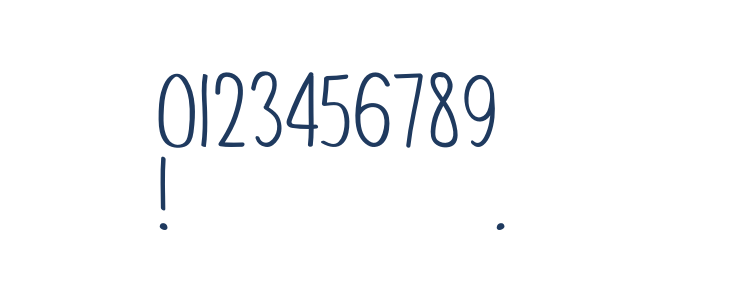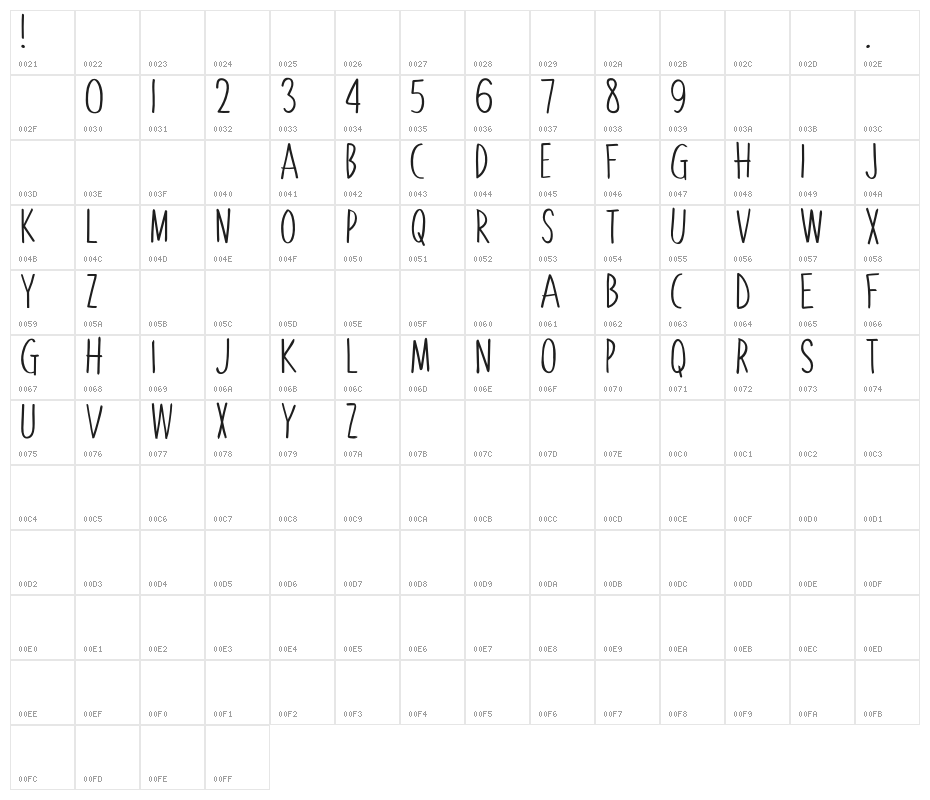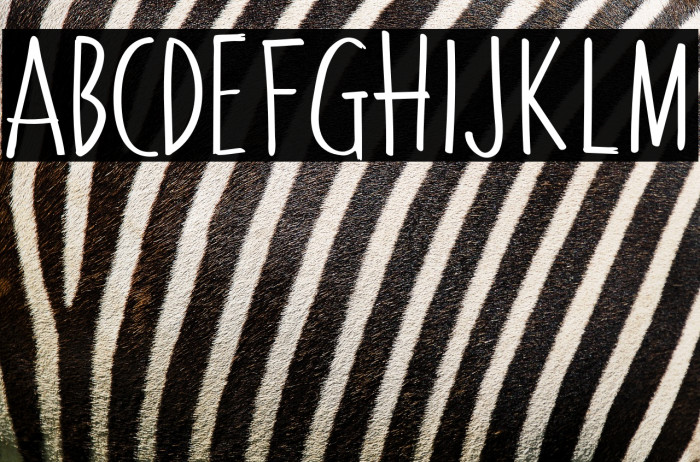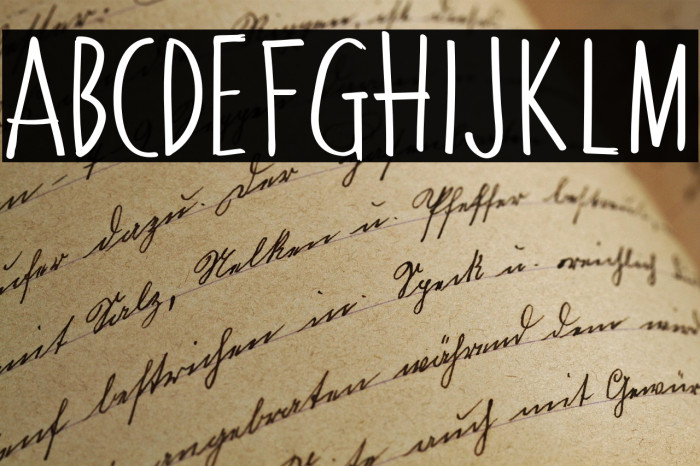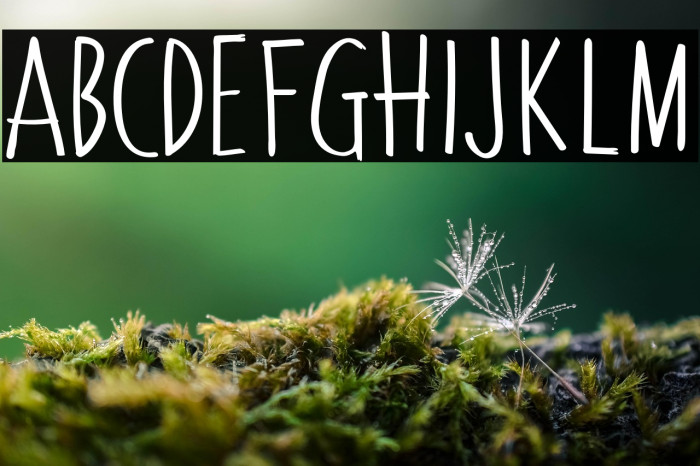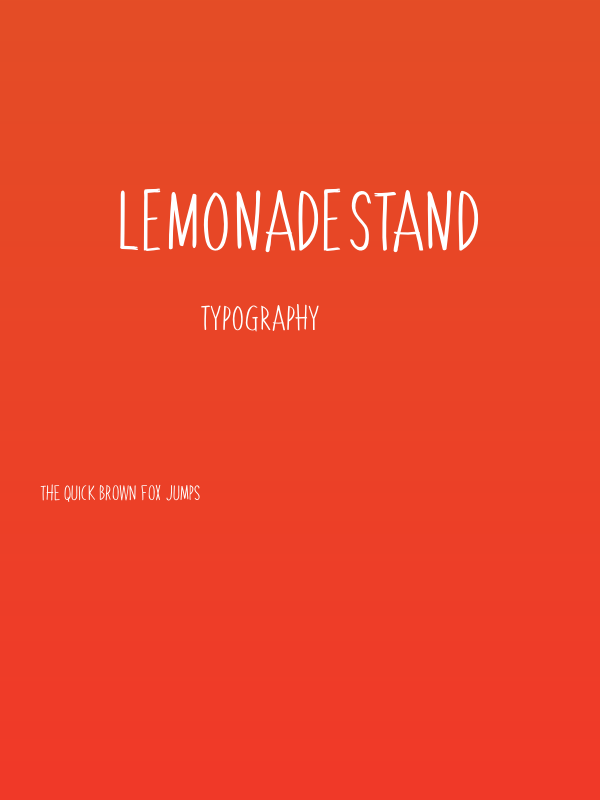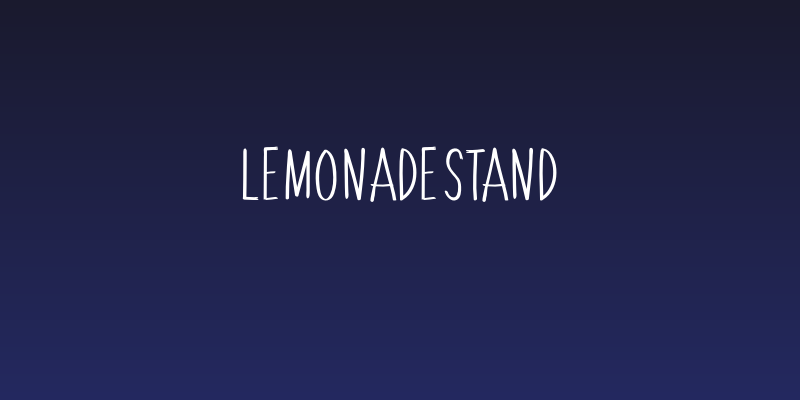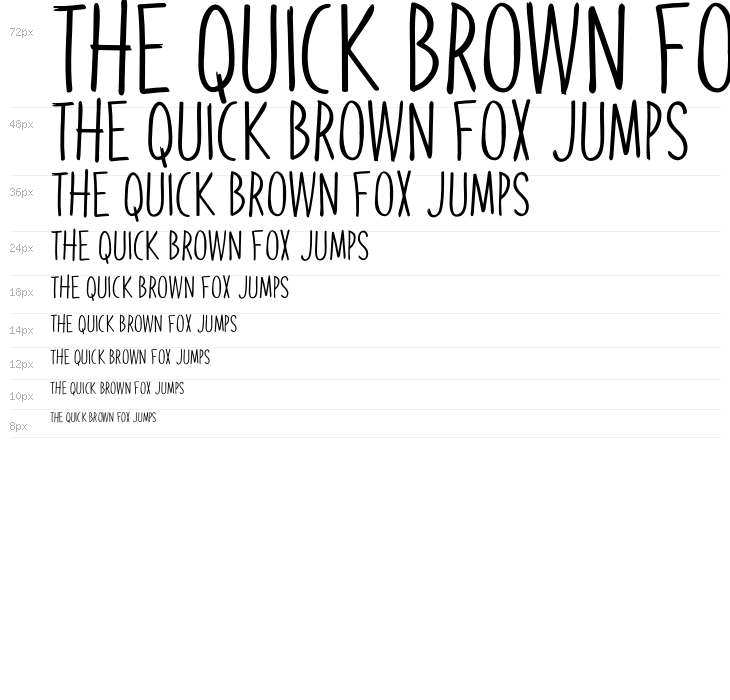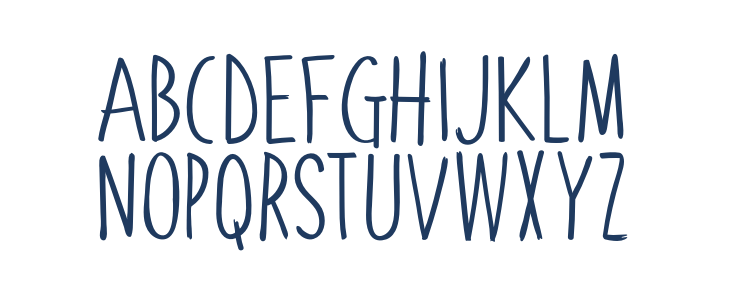
LemonadeStand Font
LemonadeStand Description
This playful and informal font features tall, narrow letters with a hand-drawn aesthetic. The strokes are slightly uneven, giving it a casual and approachable feel. The uppercase and lowercase letters maintain a consistent style, with rounded edges and a slight tilt that adds to its whimsical charm. The numerals are clear and easy to read, matching the overall style of the alphabet. Special characters are included, maintaining the same playful design. This font is perfect for projects that require a friendly and informal touch.
| Use Case | Headlines, Informal text, Branding |
| Proposed Projects | Ideal for children's books, greeting cards, playful branding, and informal event invitations. |